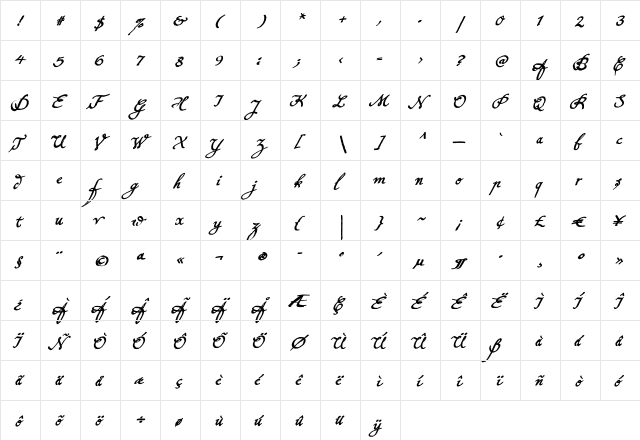
Konstantin Forte Ce Regular
Design Context for Konstantin Forte Ce Typeface
Konstantin Forte Ce is a composed and adaptable typeface that performs quietly and consistently across a wide range of design contexts.